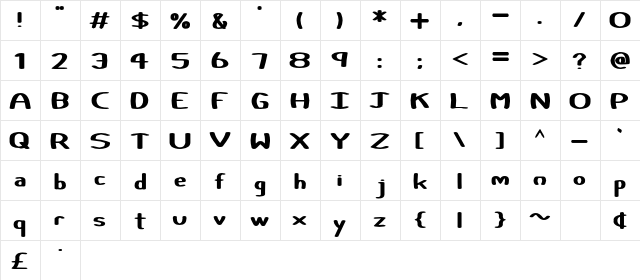
Certainly Regular
| Designer | Joseph Dawson |
Design Context for Certainly Typeface
Certainly offers clean, dependable letterforms without strong stylistic allegiance, making it a practical choice for designers who need flexibility.